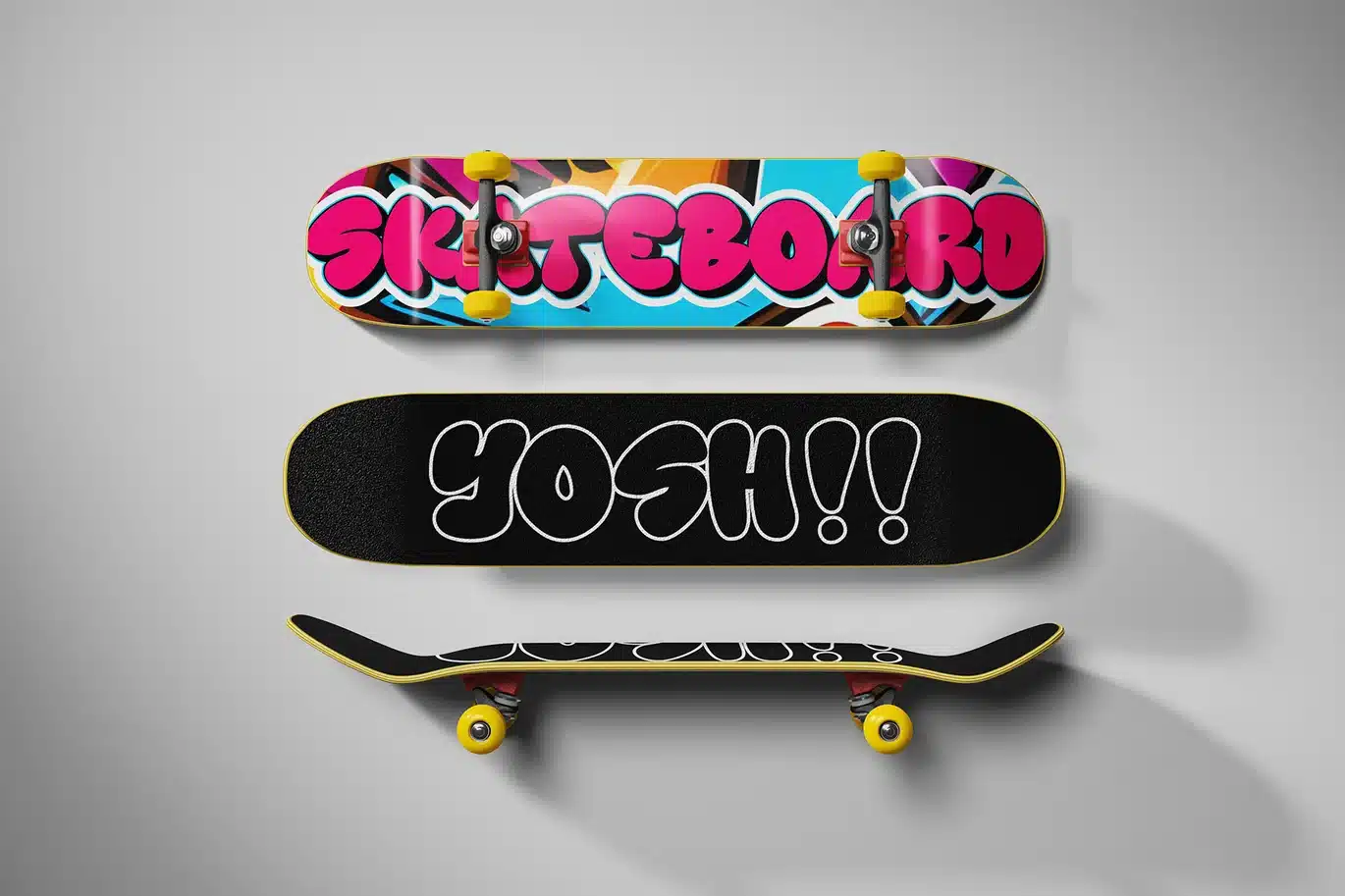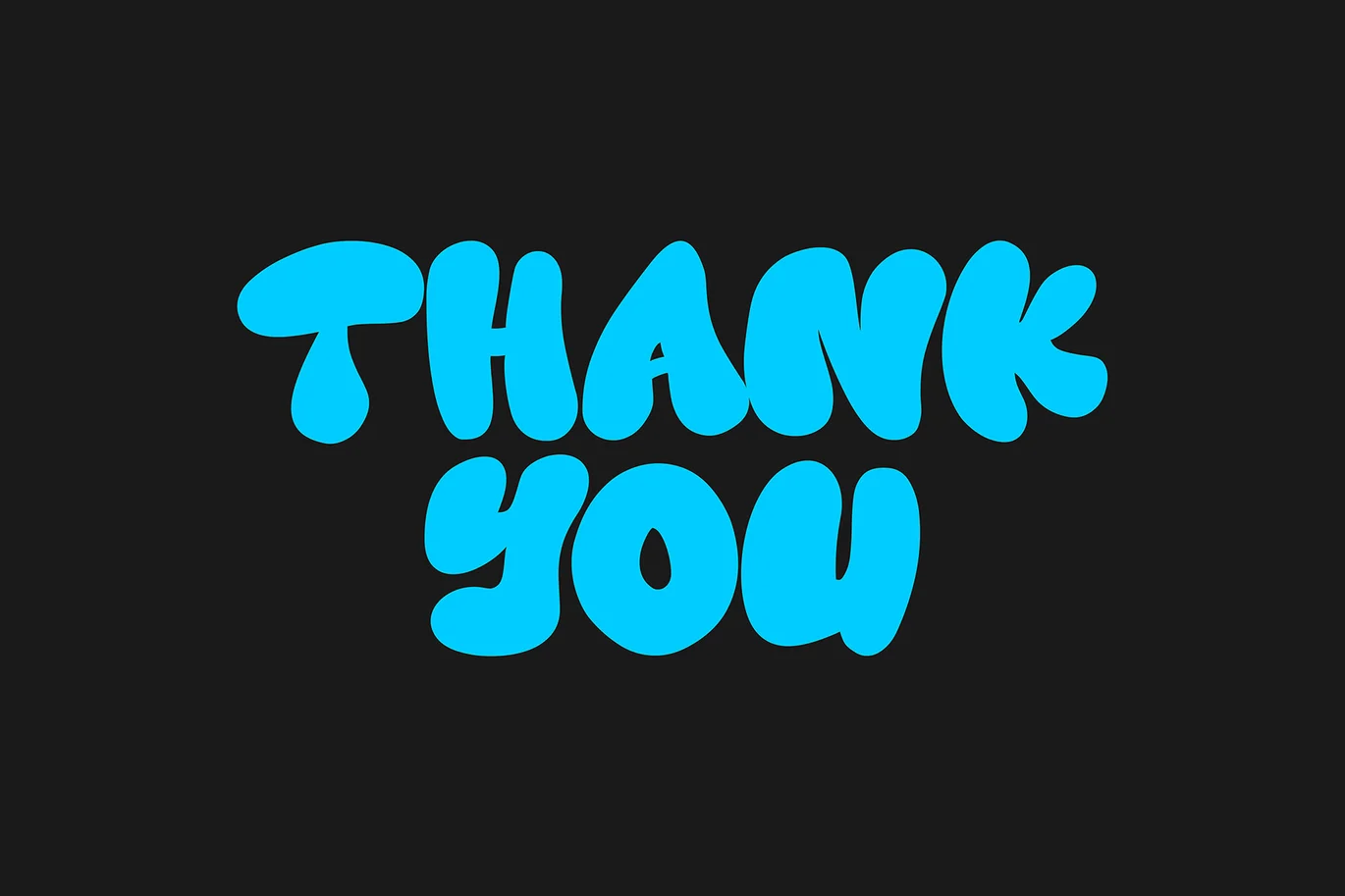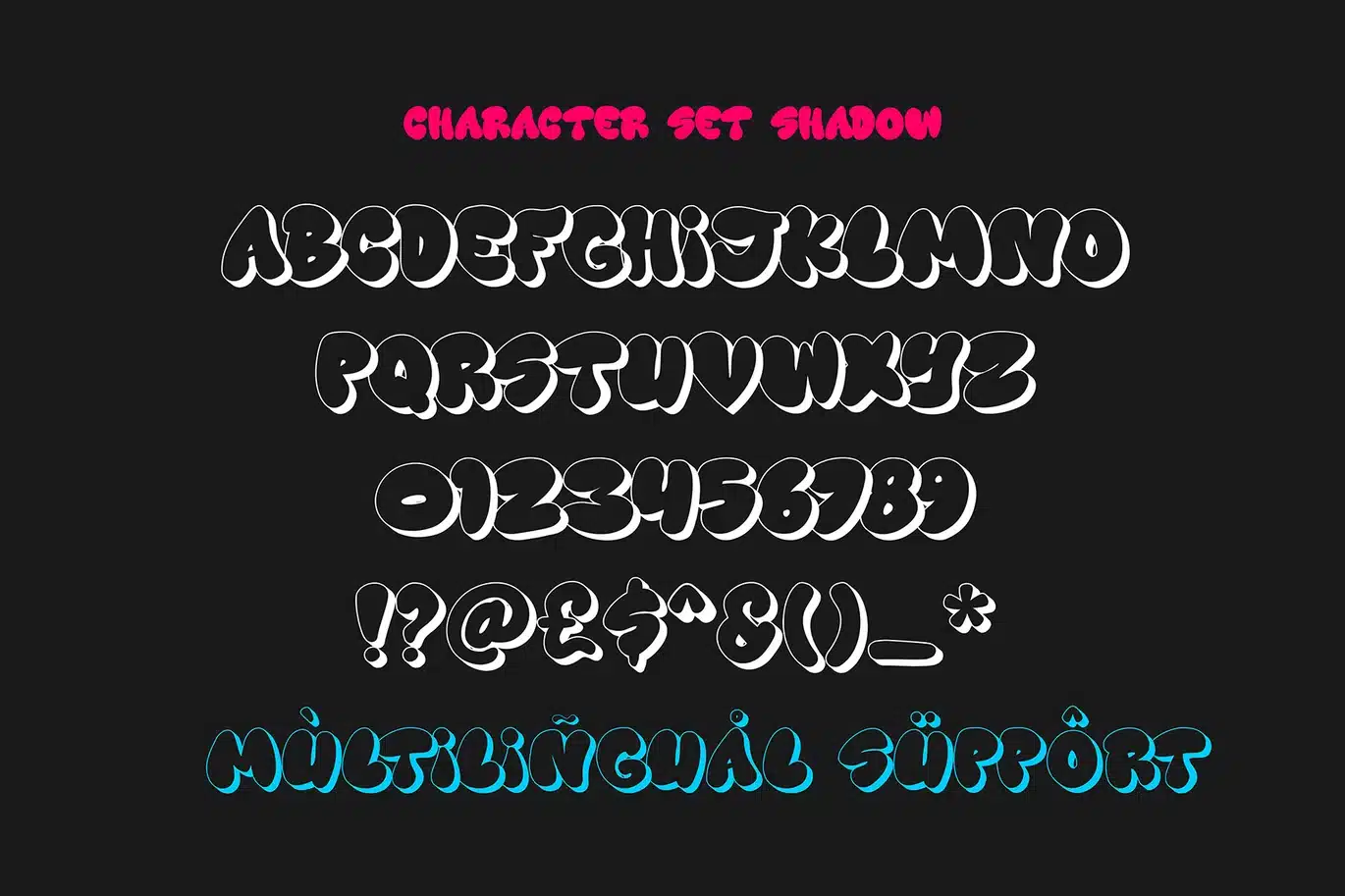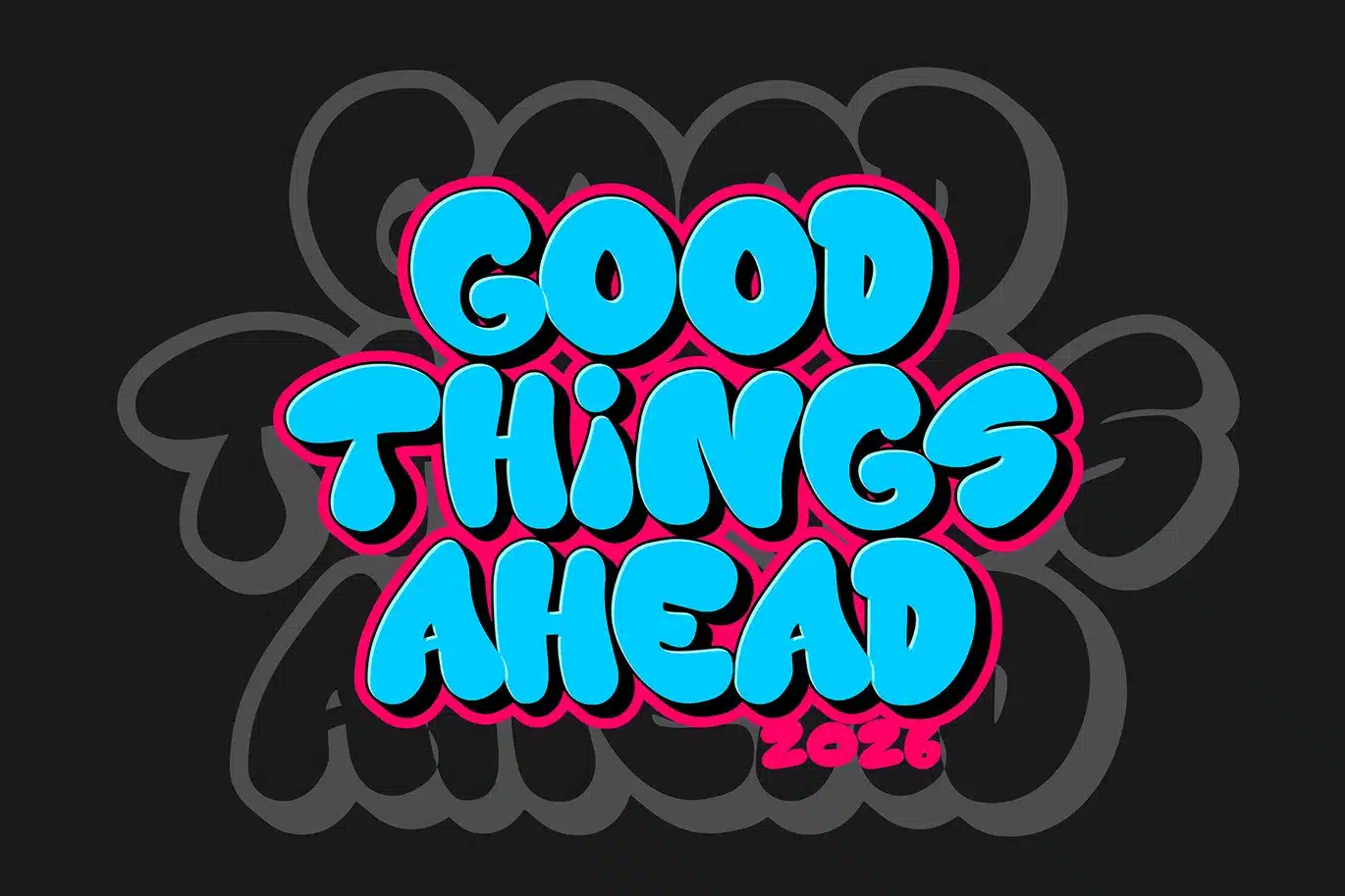
Strokid – 3d Graffiti Font
Bring strong visual impact to your designs with Strokid – 3D Graffiti Font, a dynamic typeface built for bold display use. This font combines graffiti-inspired letterforms with a dimensional 3D effect, making every word stand out clearly in both digital and print layouts.
Designed with both uppercase and lowercase characters, Strokid gives you flexibility to create expressive compositions while maintaining structure and readability. The additional shadow style enhances depth and layering, allowing you to create eye-catching typography without extra effort.
Strokid is suitable for posters, video thumbnails, gaming visuals, event graphics, headlines, and large-format designs where visibility and strong presence are essential. The 3D construction adds visual weight, helping your text remain clear even in busy compositions.
Key Features
- Uppercase & Lowercase Characters – flexible combinations for dynamic layouts
- Multilingual Support – suitable for global communication needs
- 3D Graffiti Style – built-in dimensional effect for stronger visual presence
- Shadow Version Included – adds depth without manual effects
- Display Typeface – optimized for large text such as titles and headings
- Clear Structure – maintains readability while keeping expressive forms
Why Designers Love It
Designers use Strokid because it simplifies the process of creating bold typography. The built-in 3D and shadow styles reduce the need for additional effects, saving time during production. Its structure allows consistent spacing and alignment, making it easy to use in structured layouts such as posters and digital content.
The combination of uppercase and lowercase characters gives more control when building hierarchy in text. Multilingual support also allows the font to be used across different regions without limitations. Whether used as the main title or as a supporting display element, Strokid adapts well to different visual directions.
Strokid – 3D Graffiti Font is designed for projects that require strong, dimensional typography. It helps communicate messages clearly while adding depth and structure to your layouts. With its shadow variation and flexible character set, this font provides practical solutions for creating impactful display text. Add Strokid to your collection and build designs that stand out with clarity and depth.